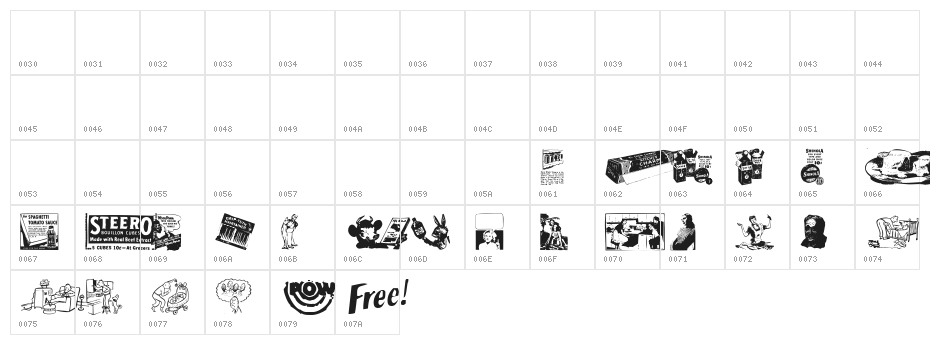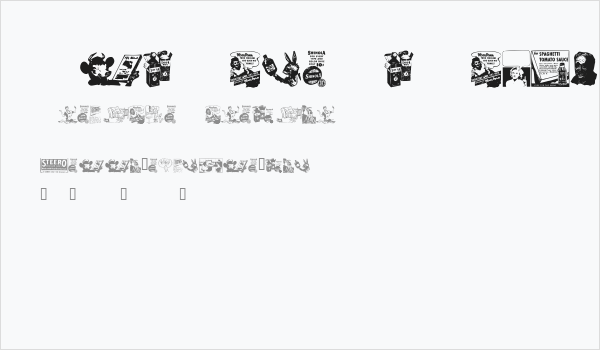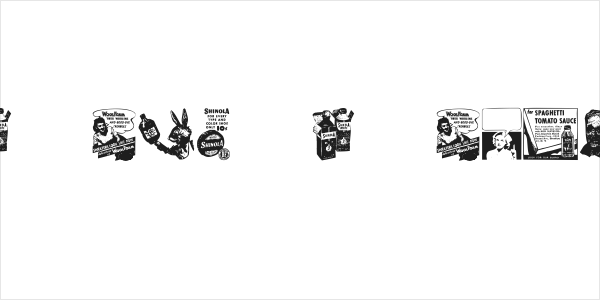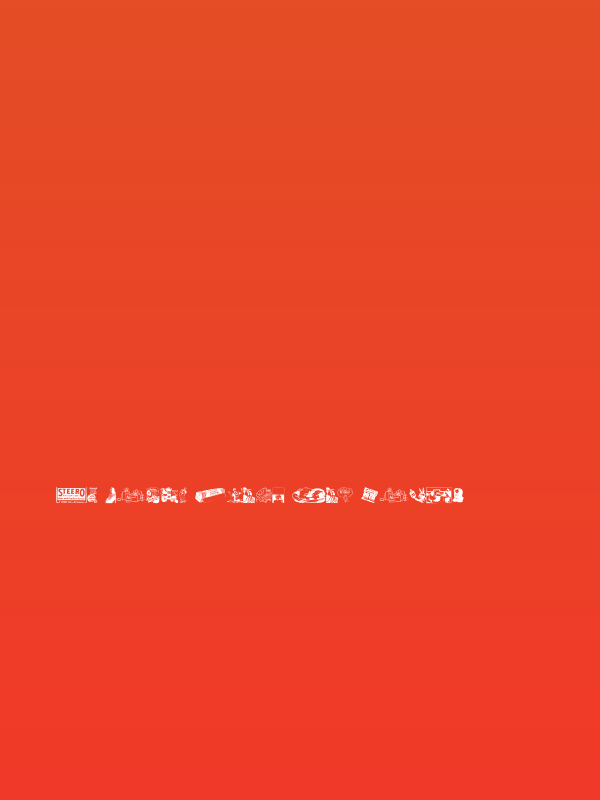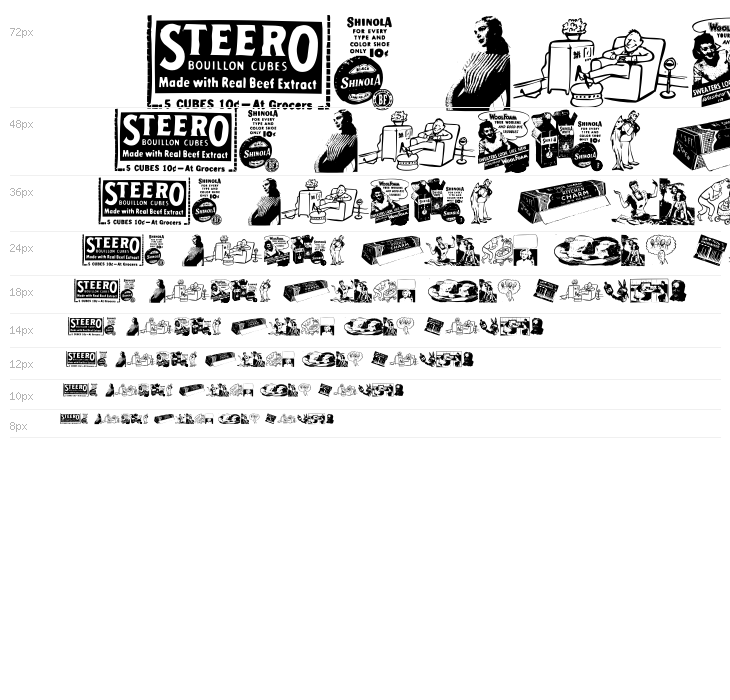
Old Time Ad Dings One Font
A collection of vintage, black-and-white advertising dingbats and illustrations, featuring retro food packaging, product scenes, cartoon characters, and promotional graphics reminiscent of early to mid-20th century print ads.
Overall StyleVintage, Decorative
Use CaseLogos, Posters, Decorative elements, Themed graphics
Proposed ProjectsPeriod posters, nostalgic branding, retro packaging, themed invitations, scrapbook embellishments.